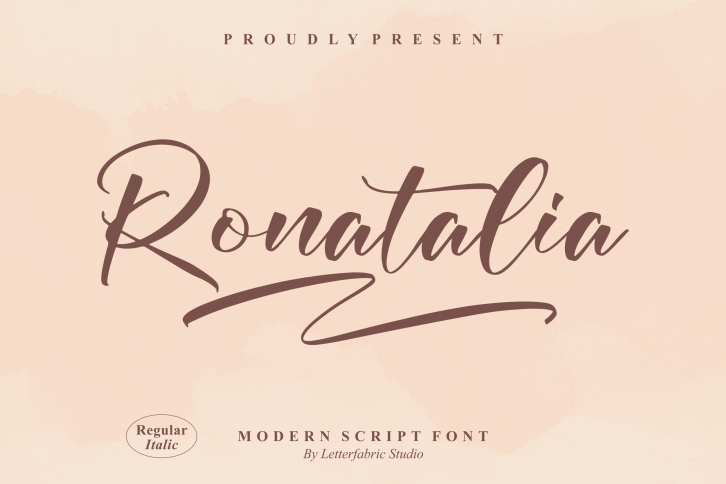
Ronatalia is a gorgeous script font. It is suitable for any projects such as: logos, branding projects, homeware designs, product packaging, mugs, quotes, posters, shopping bags, t-shirts, book covers, name card, invitation cards, greeting cards, label, photography, watermark, special events, and all your other lovely projects that need a beautiful script taste.